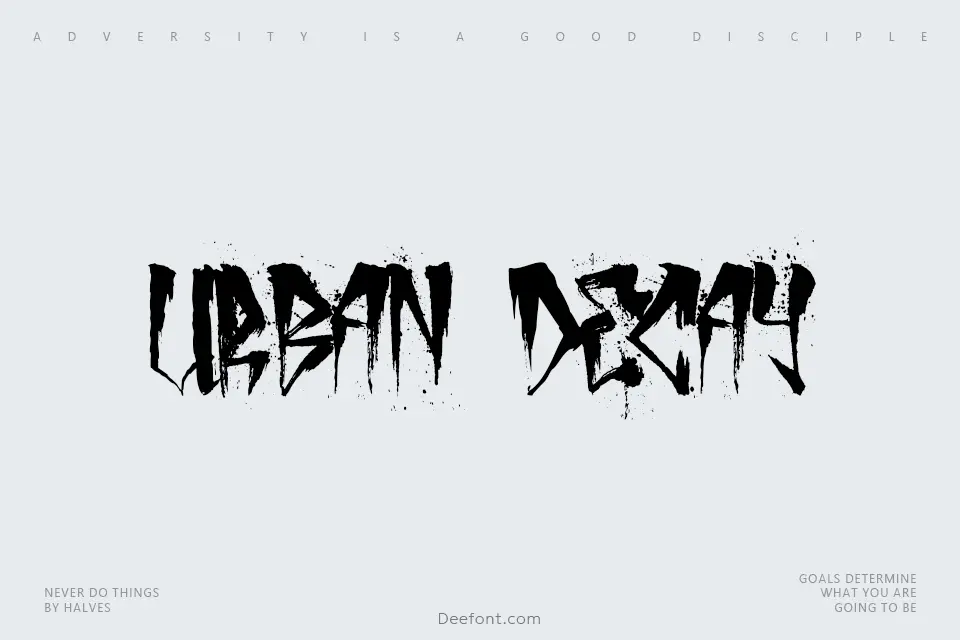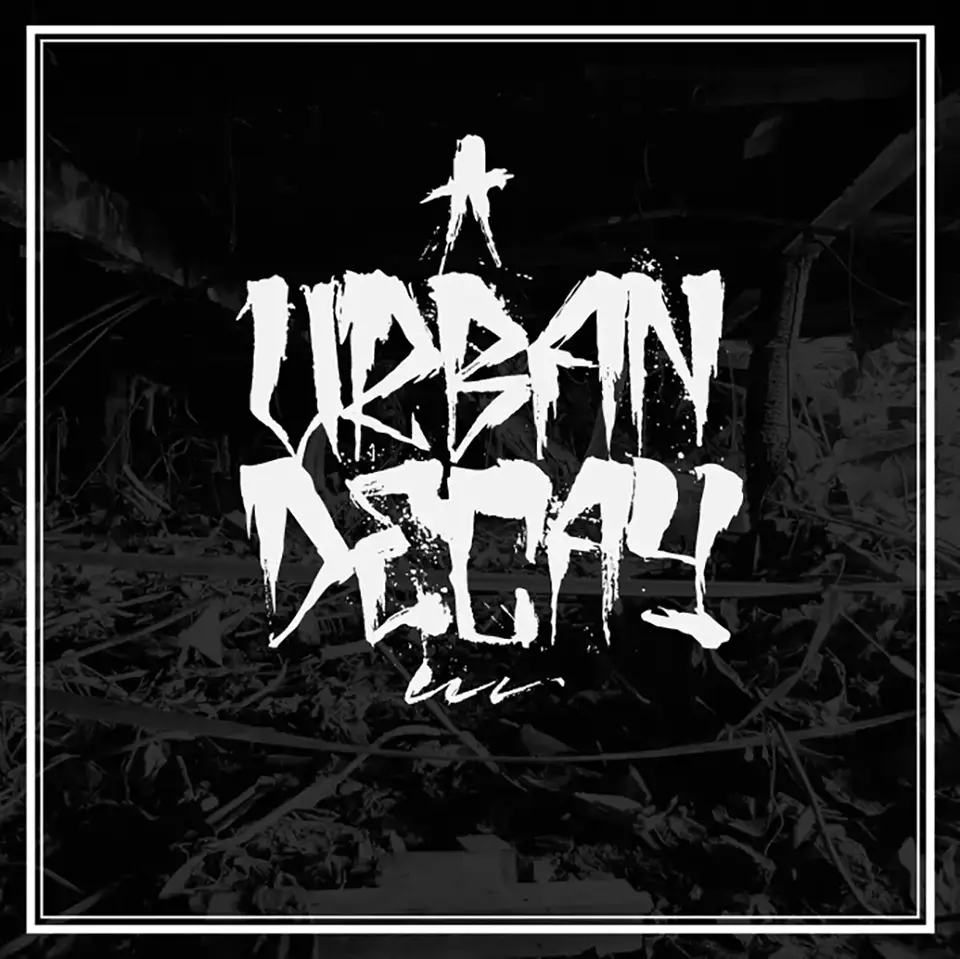
Urban Decay Font
Urban Decay is a hand-made brush stroke font that celebrates graffiti, urban exploration, and street calligraphy. This edgy, expressive typeface features a gritty, distressed appearance with authentic line movements inspired by street art. Perfect for bold headlines, poster designs, record covers, and eye-catching graphics, Urban Decay delivers an uninhibited urban energy ideal for creative projects demanding authentic rebellious style and contemporary edge.